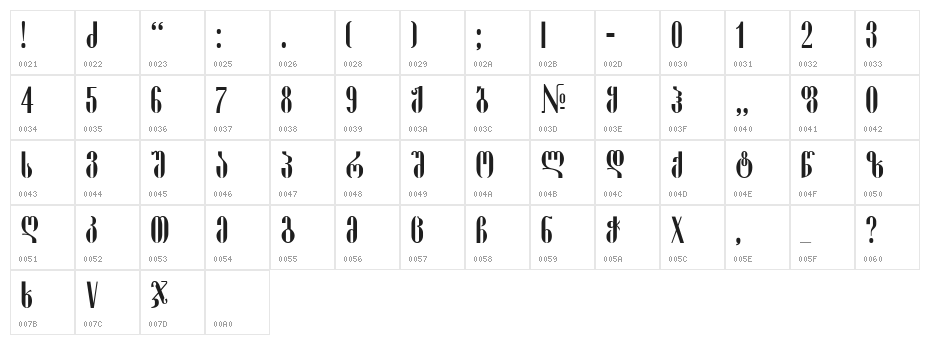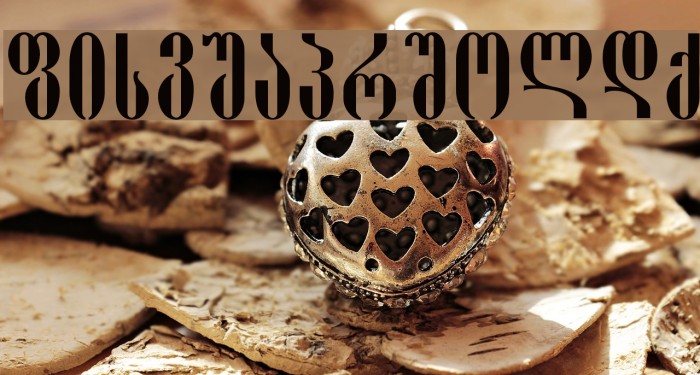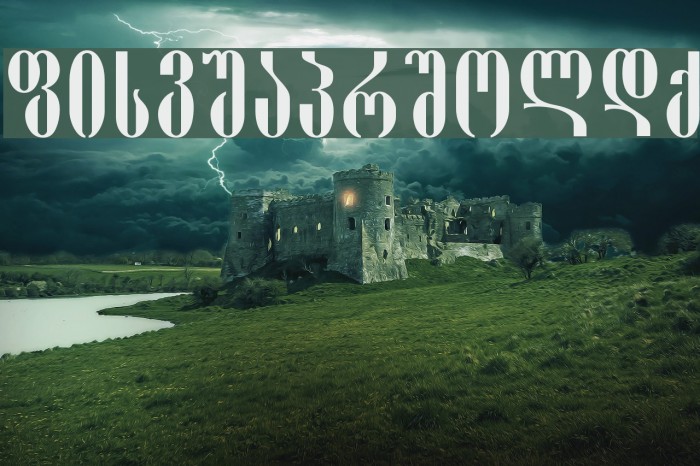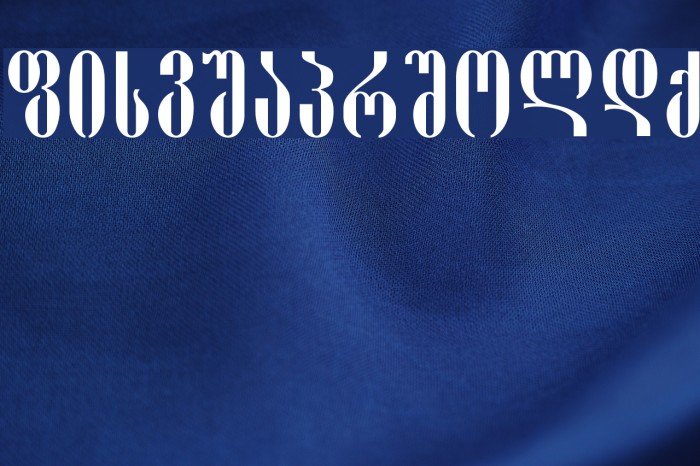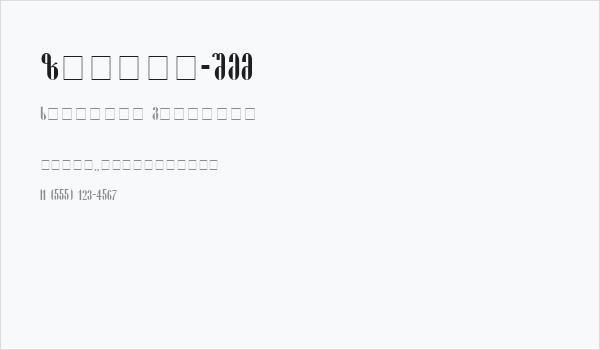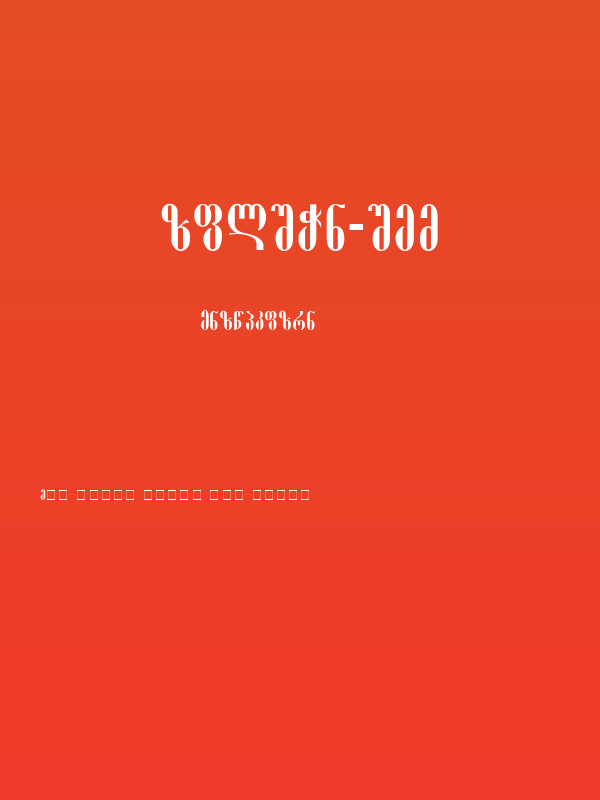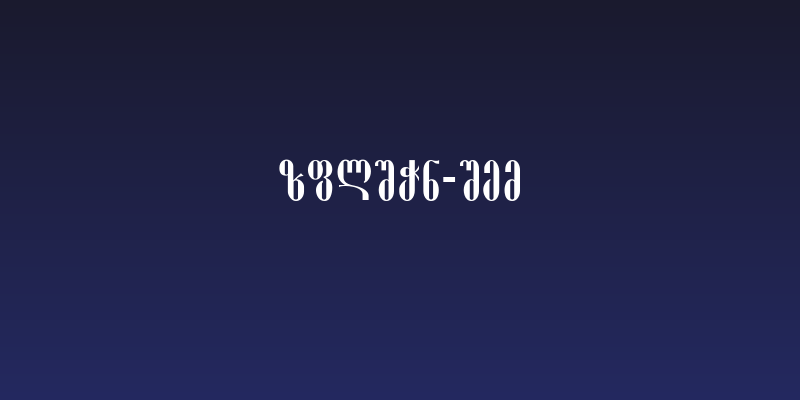
Pakizy-ITV Font
Pakizy-ITV Description
This font features a bold, decorative style with high contrast between thick and thin strokes. The characters are uniquely designed with an artistic flair, incorporating elements that suggest a blend of traditional and modern influences. The uppercase letters are particularly striking, with elongated verticals and intricate curves that create a sense of elegance and sophistication. The numerals maintain the boldness and contrast seen in the letters, ensuring consistency across the typeface. This font is ideal for making a strong visual impact, suitable for headlines or branding where a distinctive and memorable typeface is desired.